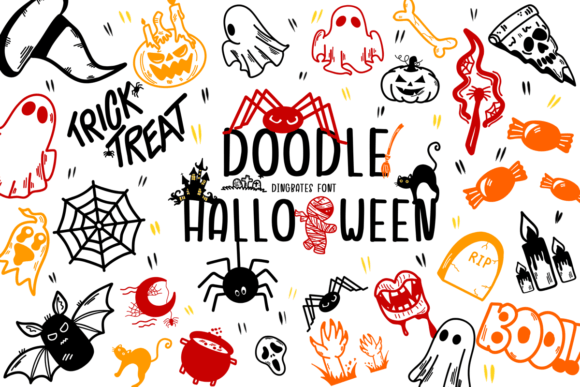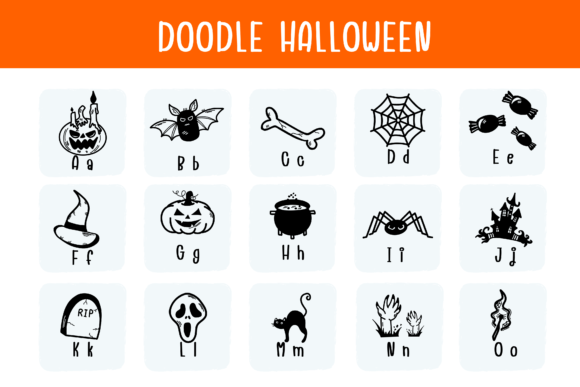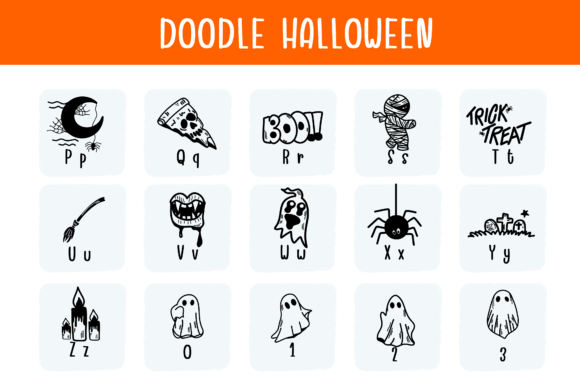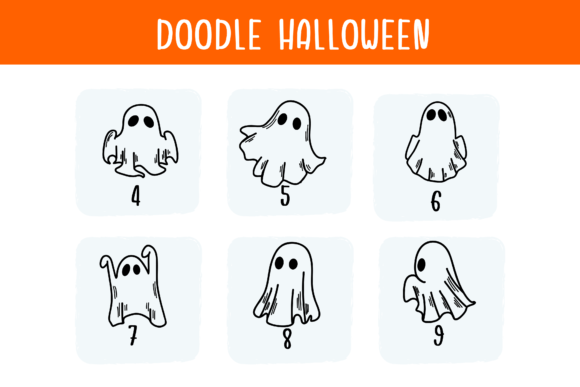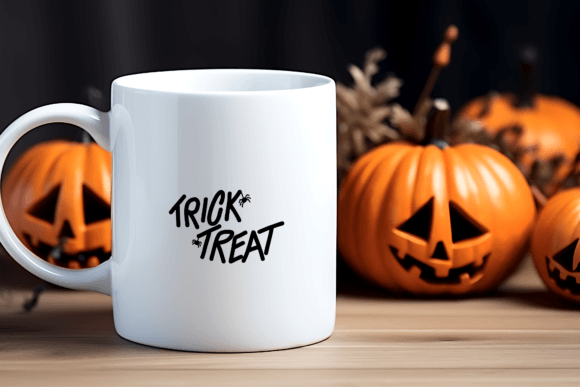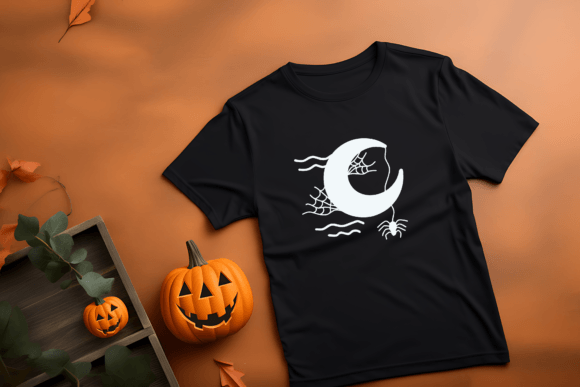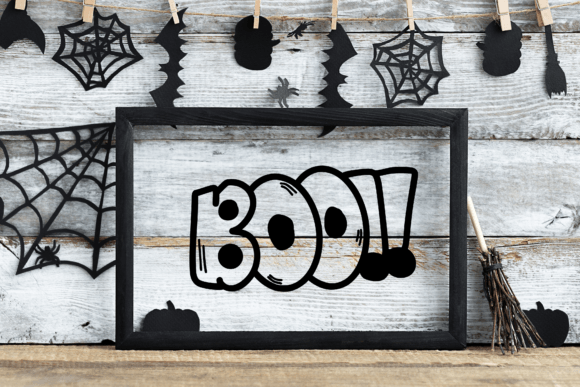
Get Your Creative Spook On: Unlock the Magic of Doodle Halloween Font
As you sit at your desk, surrounded by scattered papers, half-finished projects, and a faint glow of creativity in the air, you know that the perfect font can make all the difference. It’s that one magical element that brings your design to life, adds a touch of whimsy, and makes your audience go “wow.” And, my friends, I’m excited to introduce you to the perfect font for all your spooky-ooky needs: Doodle Halloween Font.
This delightful dingbats font is a masterclass in sketched charm, perfect for adding a playful twist to your wedding invitations, DIY crafts, decorations, logos, and any other creative project that needs a little extra oomph. As a designer, you know how valuable a versatile font can be, and Doodle Halloween Font is no exception. With its eclectic, hand-drawn style, you’ll be able to add a unique touch to even the most mundane designs.
Doodle Halloween Font Key Features
- Unique Hand-Drawn Design: The font features a whimsical, hand-drawn style that adds a touch of personality to any Halloween-themed project.
- Over 30 Characters and Symbols: The font includes a range of characters and symbols, including letters, numbers, and special characters, to help you create spooky and fun designs.
Doodle Halloween Font Review
First off, let me say that I was immediately drawn to the whimsical, hand-drawn style of the Doodle Halloween Font. ✨ It’s got a fun, playful vibe that’s perfect for any spooky-themed design project. The font is well-suited for titles, headings, and even short blocks of text. I particularly like the way the font’s imperfections give it a sense of character and personality.
- The font’s unique style is sure to stand out in any design project.
- It’s perfect for Halloween-themed designs, but also works well for other spooky or eerie projects.
- The font is highly customizable, allowing you to adjust the size, color, and spacing to fit your design needs.
However, there are a few limitations to keep in mind. ⚠️ The font can be a bit difficult to read in smaller sizes, especially for longer blocks of text. Additionally, the font’s imperfections can sometimes make it look messy or unprofessional if not used thoughtfully. Finally, the font may not be suitable for designs that require a more serious or formal tone.
Overall, I think the Doodle Halloween Font is a great addition to any designer’s toolkit. It’s a fun, versatile font that’s perfect for adding a touch of whimsy to your designs. Just be sure to use it thoughtfully and in the right context to get the most out of it.
The Doodle Halloween Font is perfect for creating spooky and fun designs for Halloween-themed events, parties, and decorations. Some common use cases include:
– Creating spooky invitations and party decorations
– Designing Halloween-themed posters and flyers
– Adding a spooky touch to social media graphics and ads
– Creating custom Halloween-themed graphics and illustrations